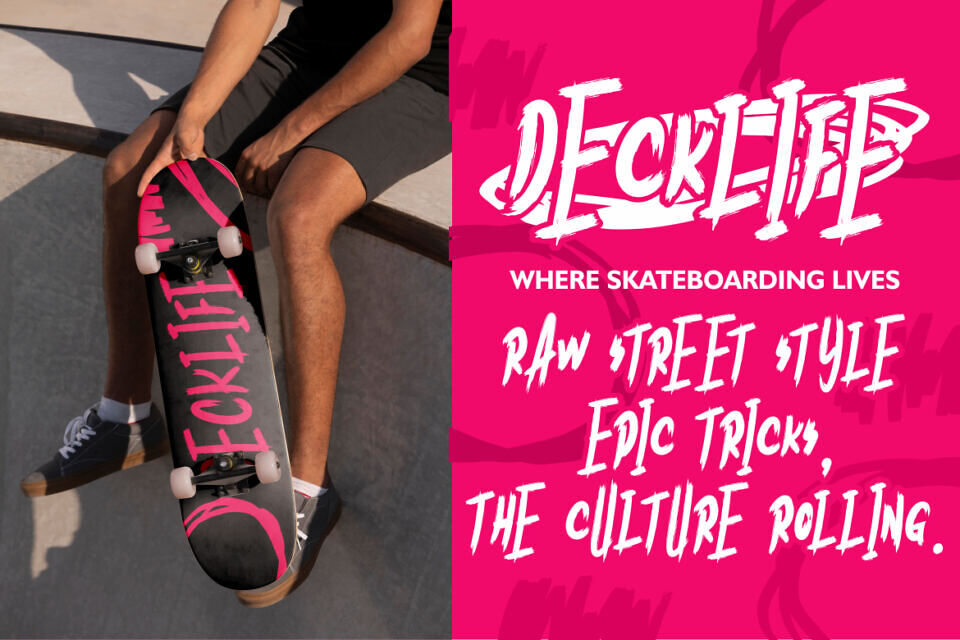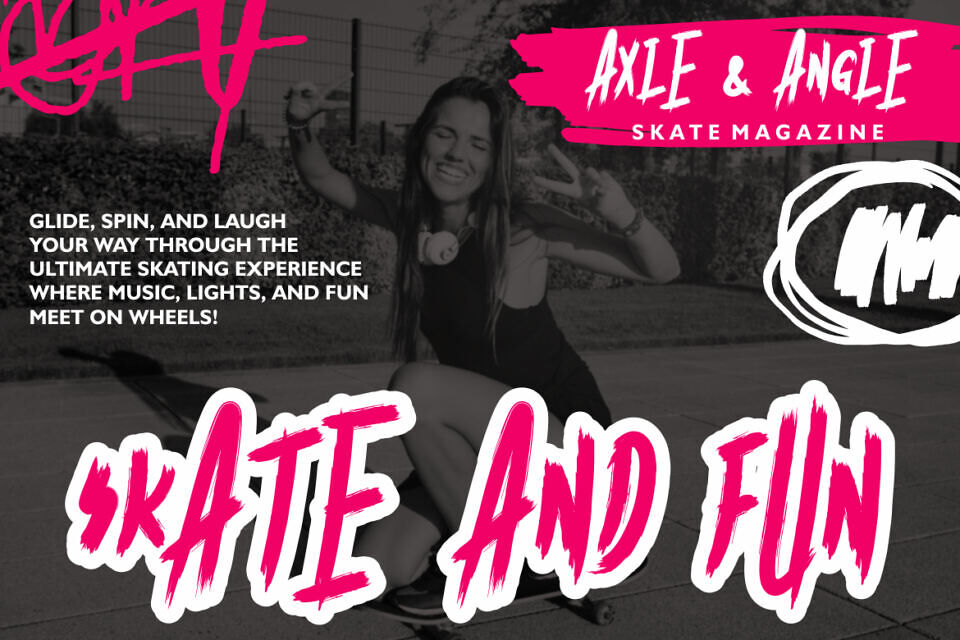
Splatify Font
Splatify Brush Font is a striking typeface designed with bold brush strokes that deliver a raw, expressive feel. Each character is tall and slightly condensed, with rough edges that highlight authentic hand-painted texture. The strokes are dynamic and energetic, creating a sense of movement that makes every word look alive.
This brush font balances legibility with attitude, making it perfect for projects that demand attention and creativity. Ideal for branding, poster titles, bold headlines, and impactful quotes. With its handlettering essence, it channels the spirit of street art and urban culture while maintaining a modern, stylish edge.